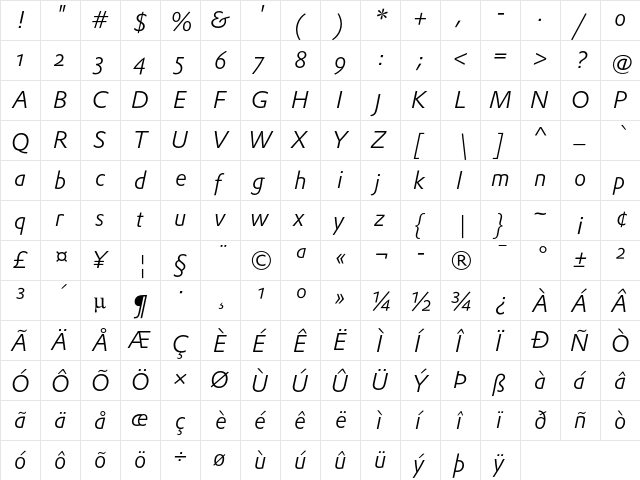
DTLProkyonSTLight Italic
Design Context for DTLProkyonSTLight Typeface
DTLProkyonSTLight offers clean, dependable letterforms without strong stylistic allegiance, making it a practical choice for designers who need flexibility. The dynamic lean of this cut emphasises speed and emphasis in any layout. Its slender proportions lend an understated elegance to any composition.